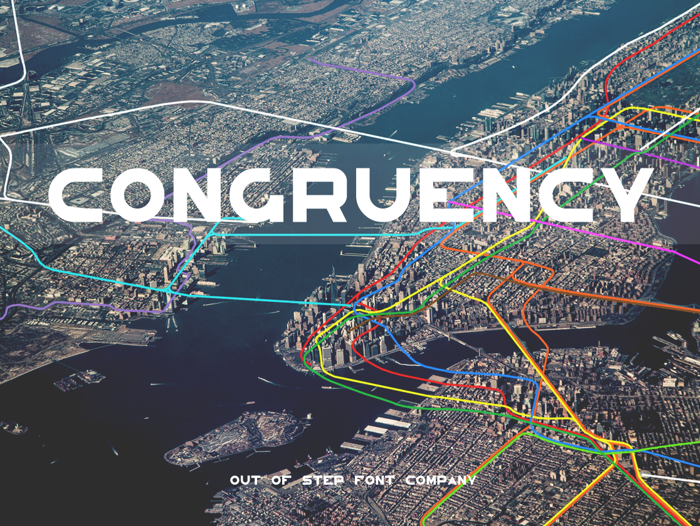
Congruency Font
Congruency 3D Style
Congruency is a modernist sans-serif typeface inspired by modern architecture, with streamlined shapes and an expanded profile.